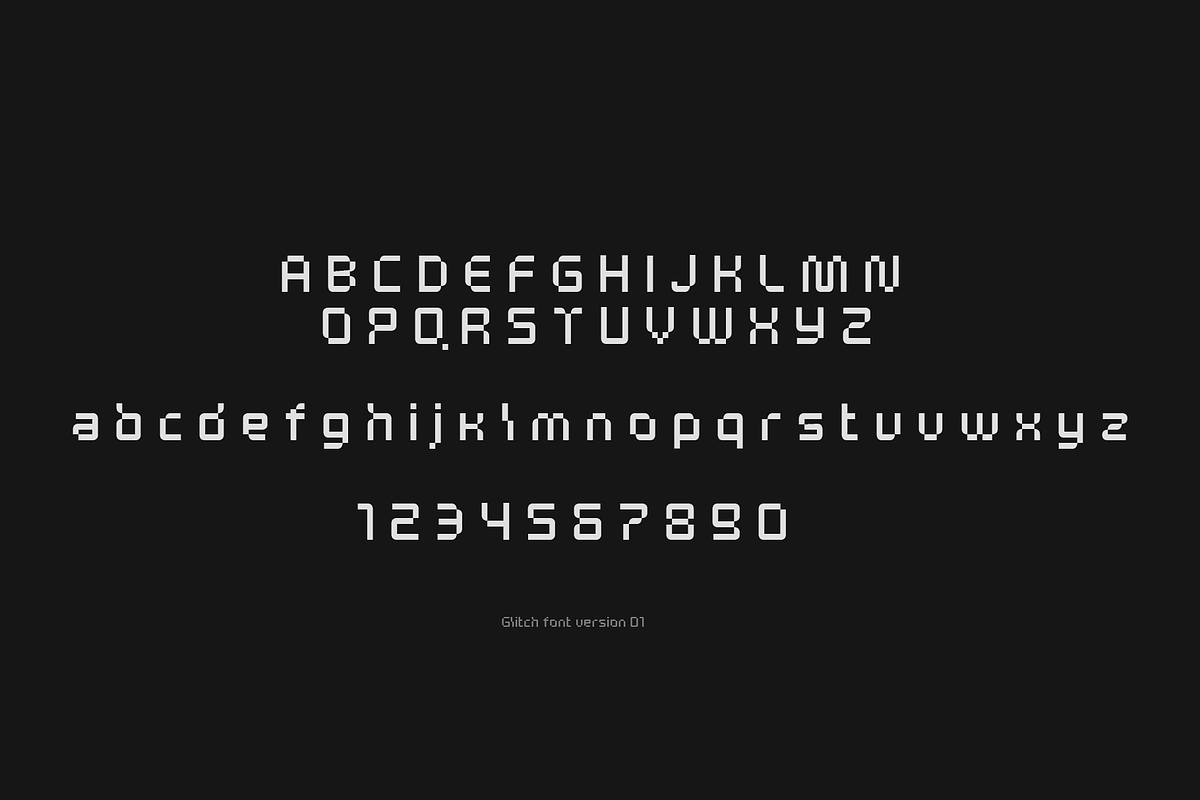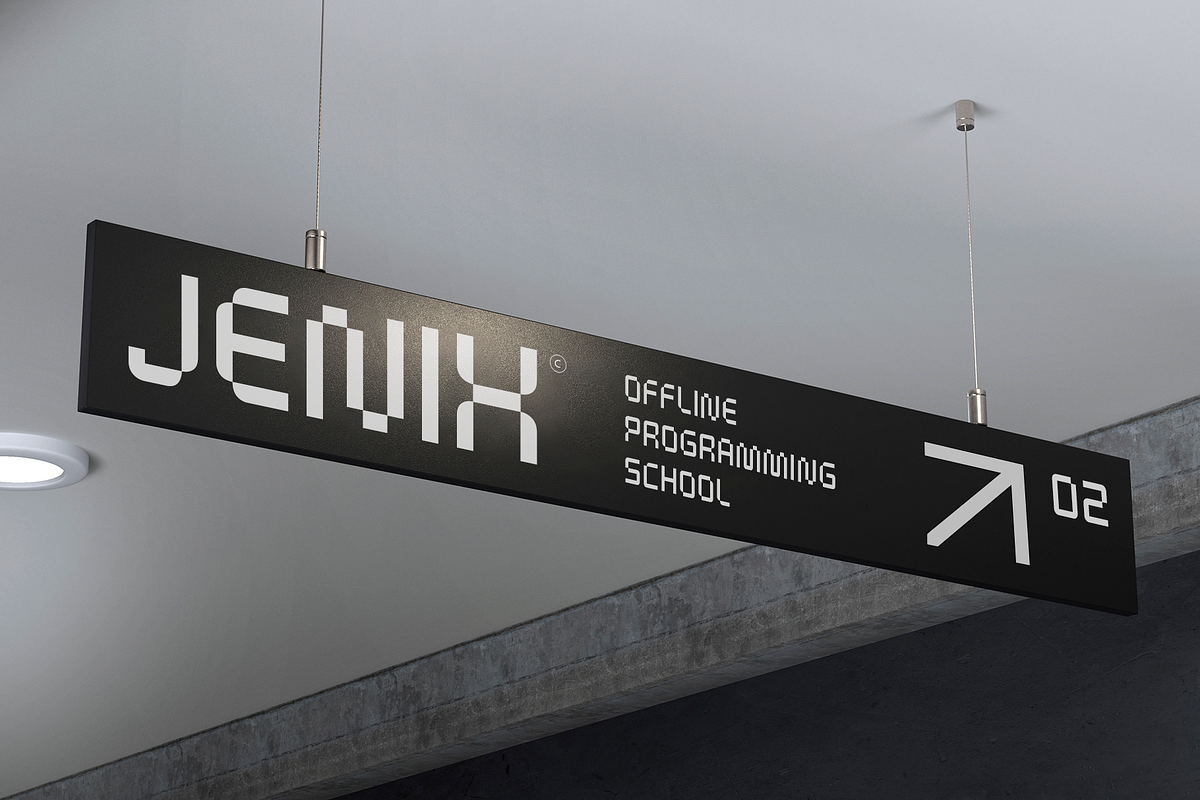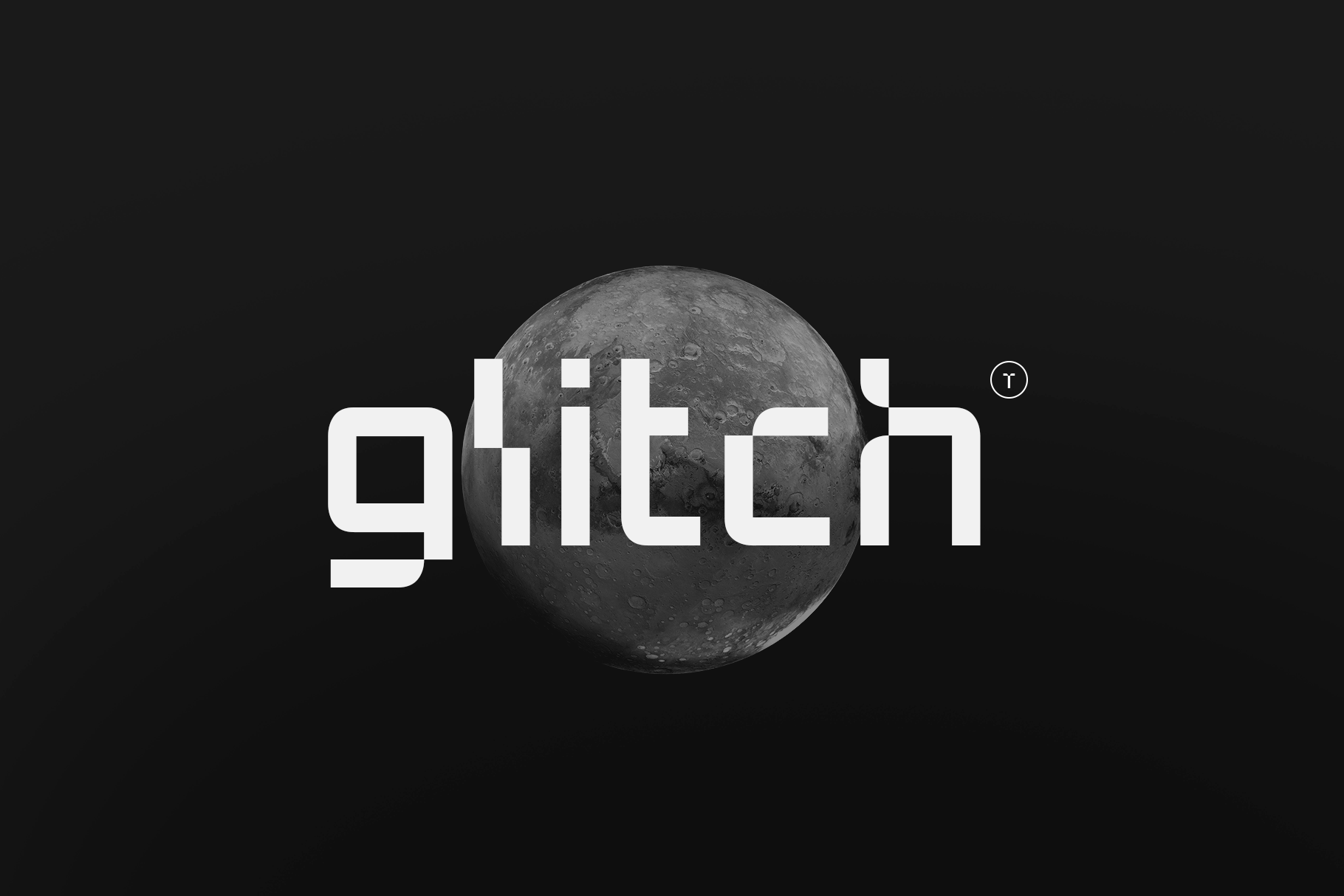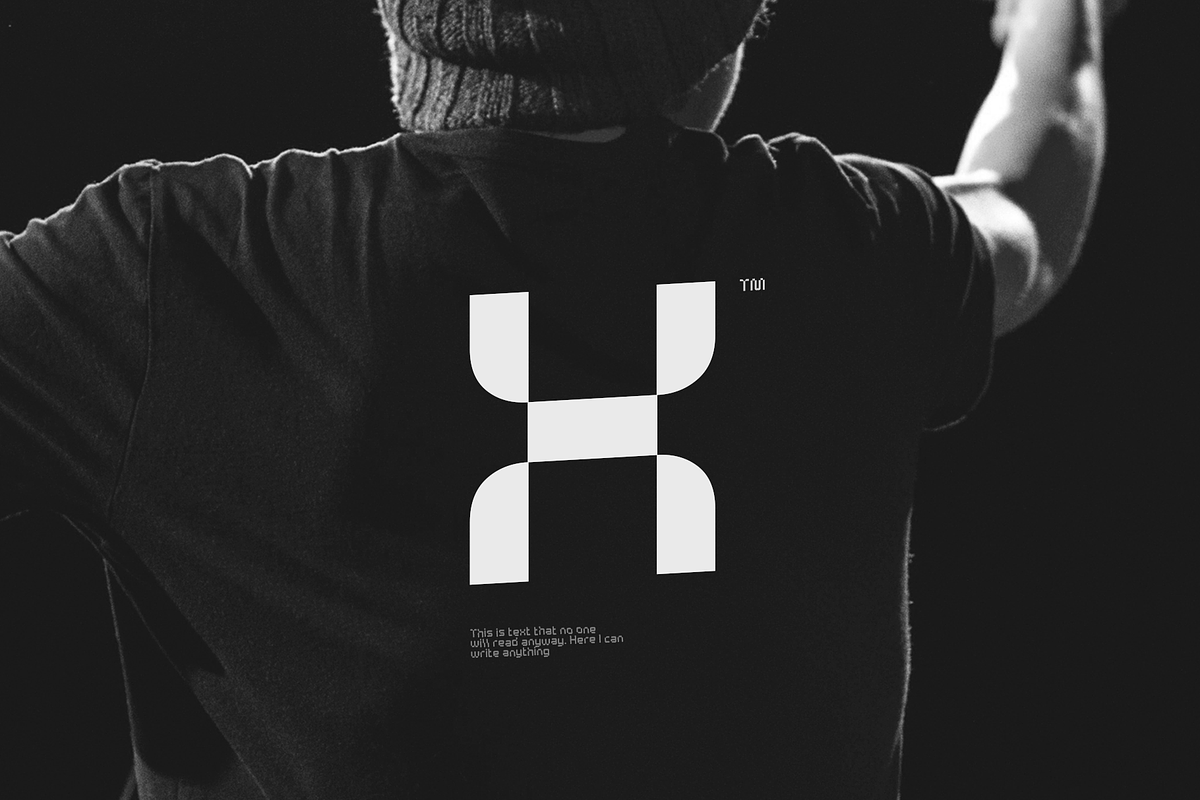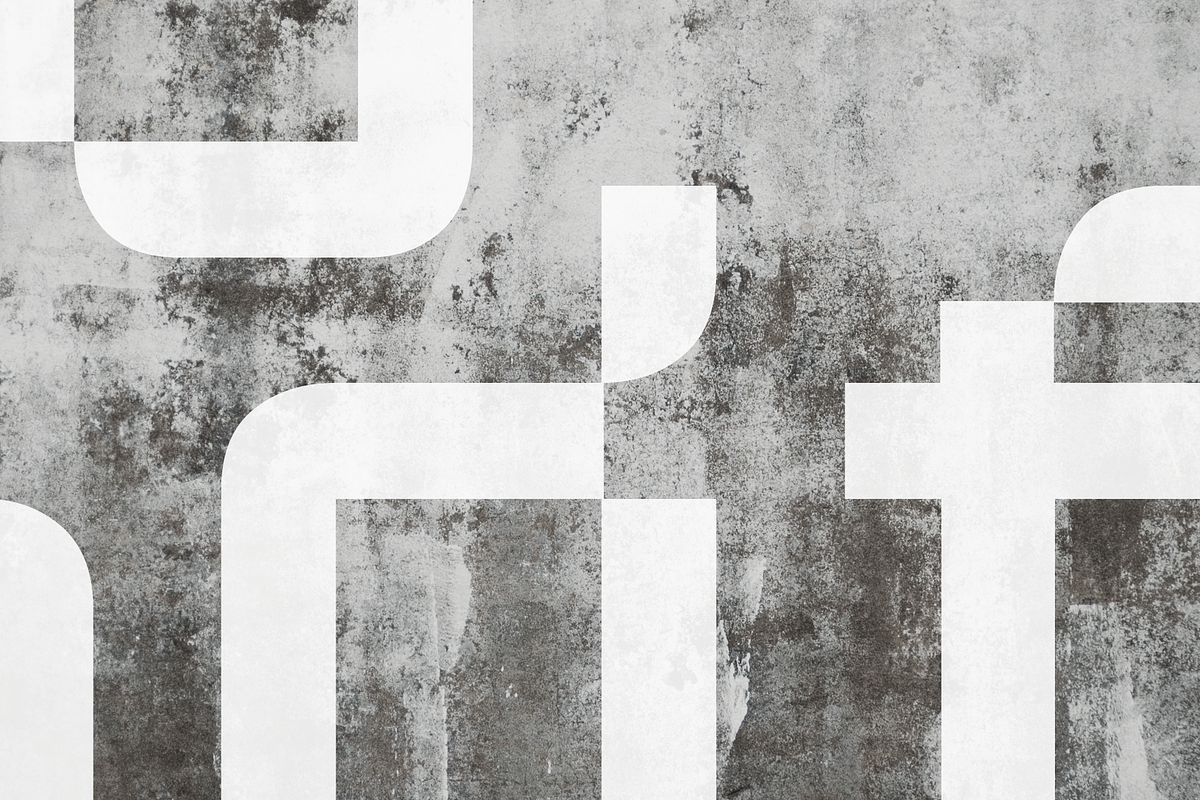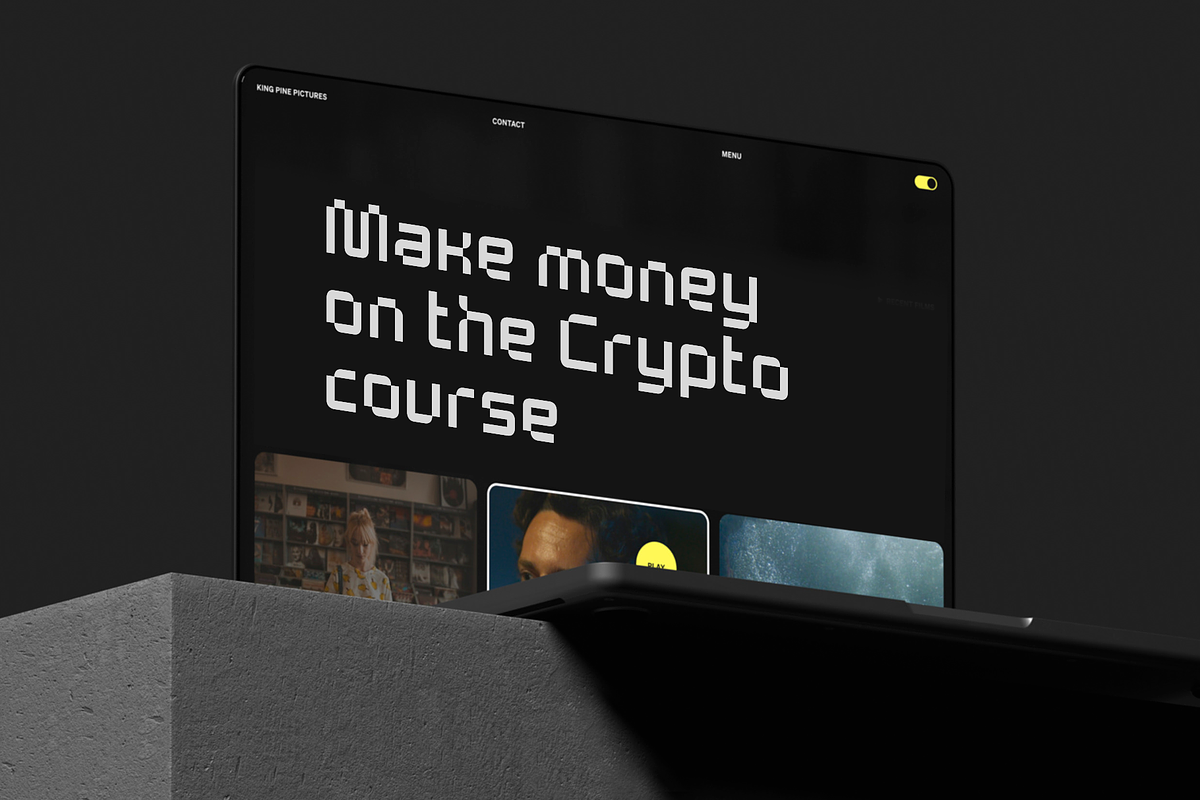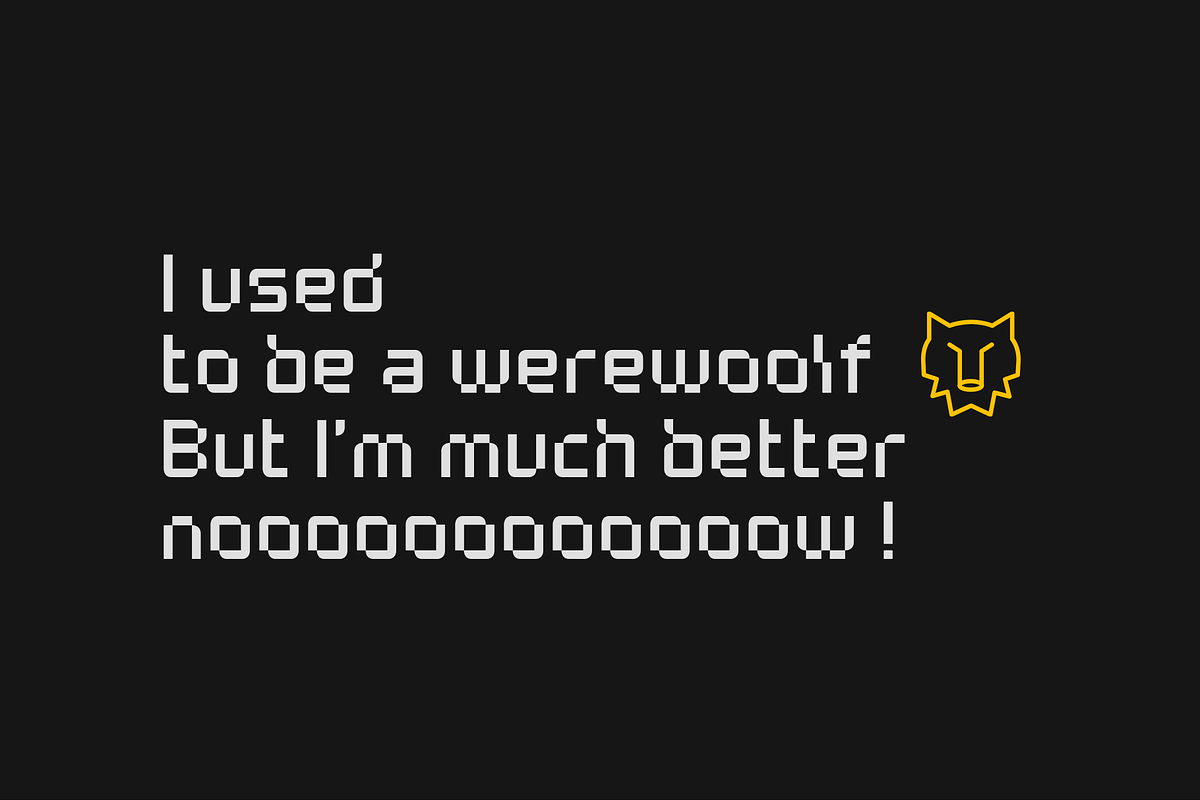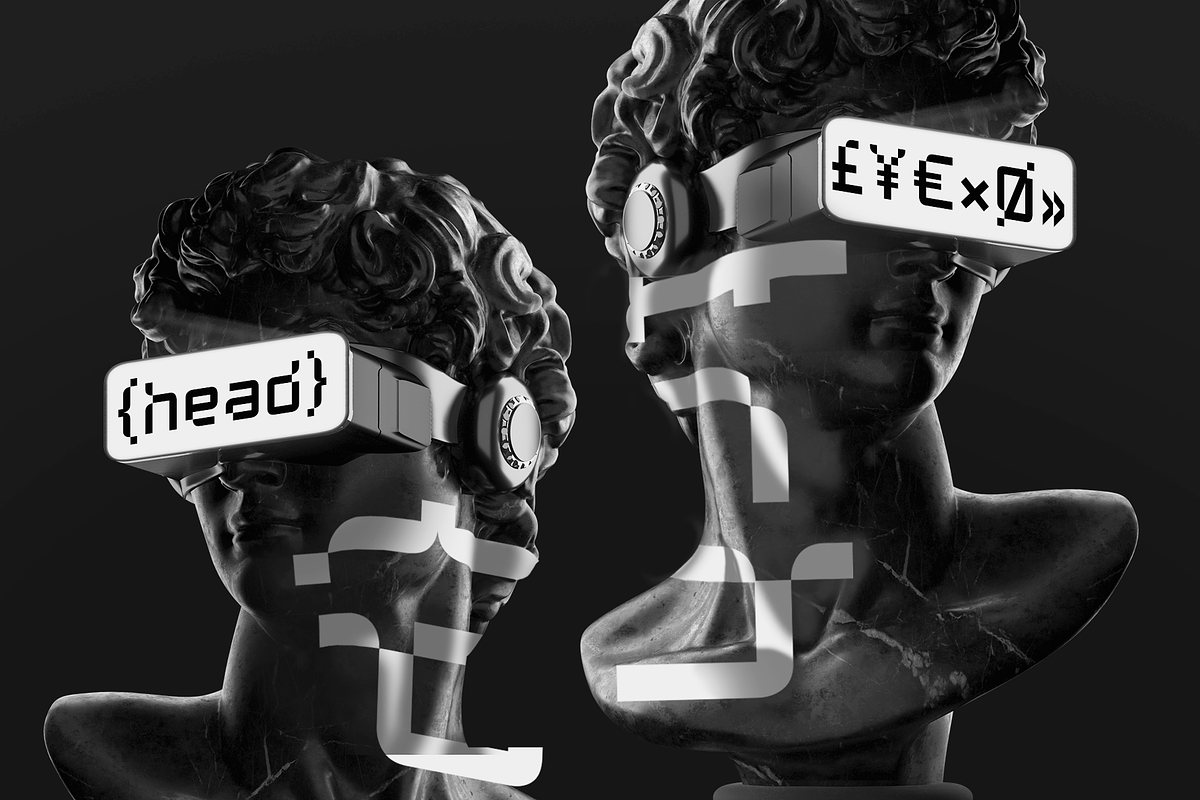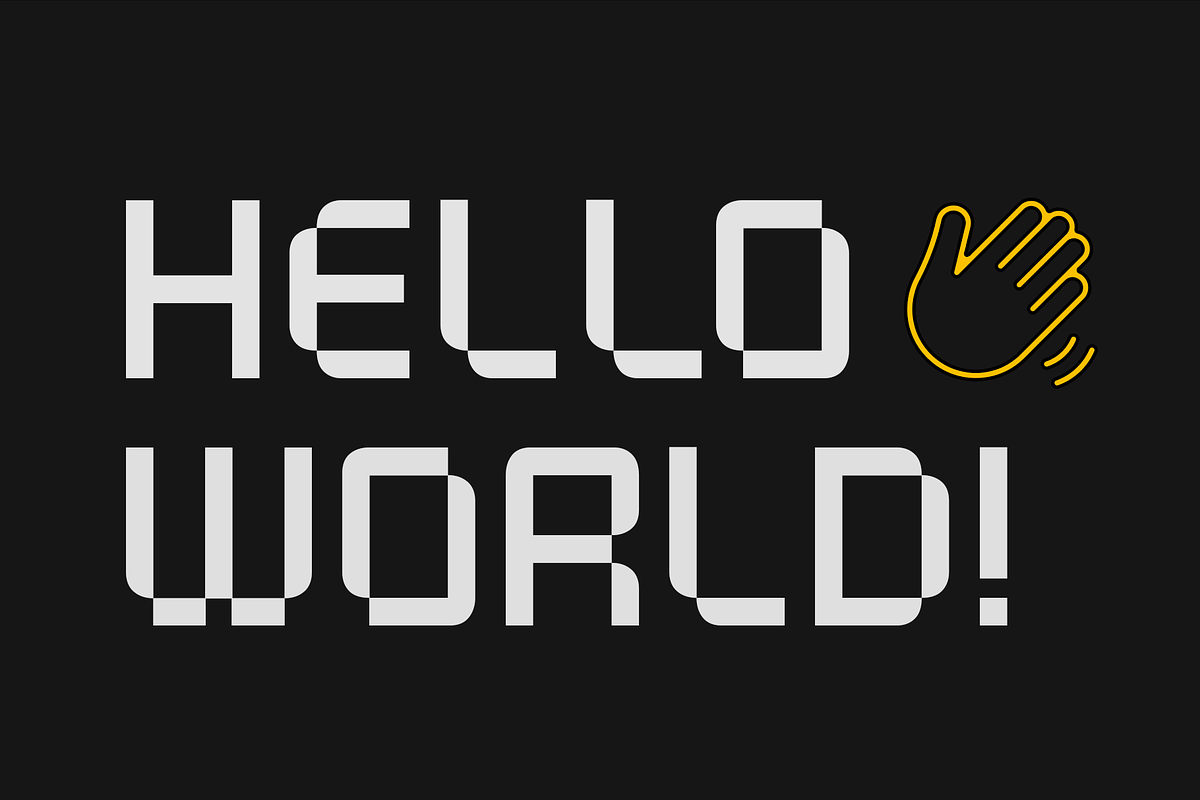
Glitch font - Pixelated Display Sans
Glitch is an accentuated modern typeface. It emphasizes the digital identity of your product. More often than not, pixel fonts look rough. Glitch has a more elegant, subtle shape, improving perception. Gitch is suitable for crypto projects, programmers, and game design. It also has its place in printing, web design, and media.